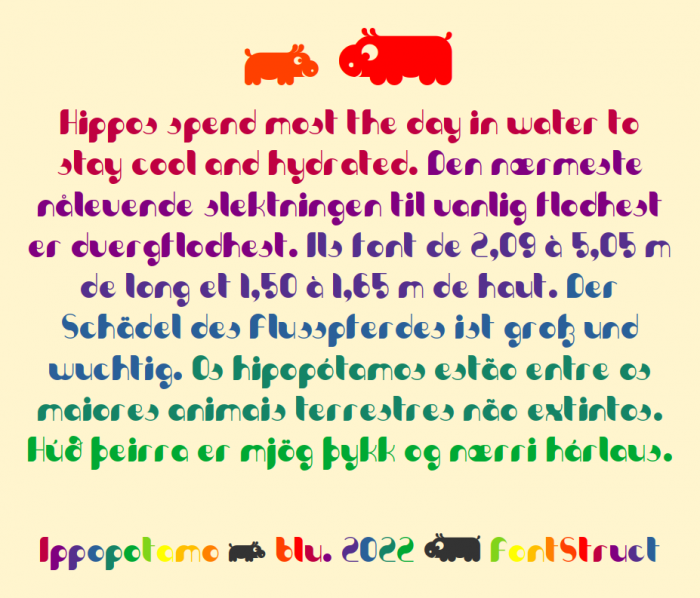
• inspired by a hippo ...
Very cool idea u got here, I only don't like the somewhat random inconsistent mix of sharp pointy glyphs and the ones that implemented the thin quarter circle bricks. I would love to see the font implementing this thin macaroni style stroke throughout its full character set.
But nonetheless nice work!
@Sed4tives: Thanks for your comment. There was something that bothered me, but I didn't know what. Maybe it really was these sharp pointy glyphs. I try to change them.
Nice friendly look.
Nice hippo art. Didn't even know that was possible in FontStruct. 10/10
Congratulations! FontStruct Staff have deemed your FontStruction worthy of special mention. “Ippopotamo” is now a Top Pick.
Love it!